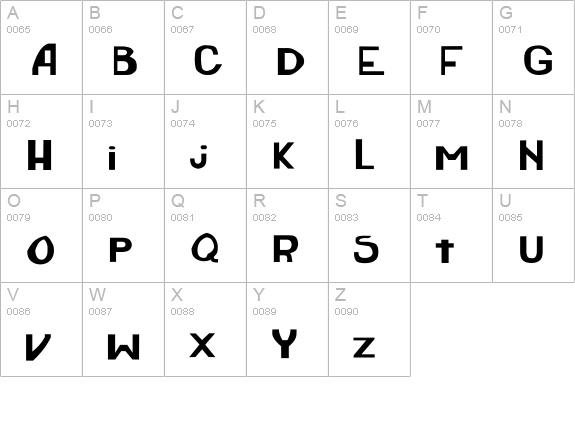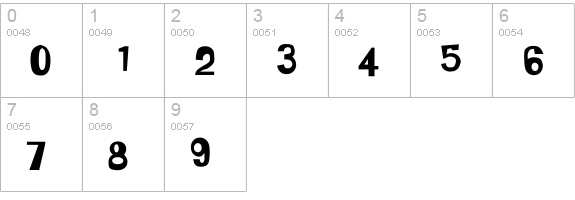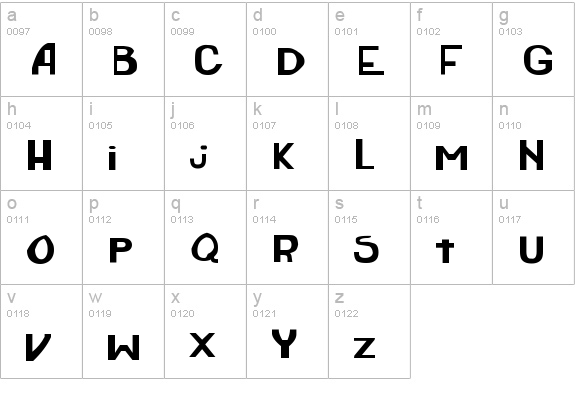
im Font Details
Introducing the exquisite and versatile im font, a true gem for typography enthusiasts. This beautifully crafted font is the perfect blend of elegance and modernity, making it suitable for a wide range of design projects. With its clean lines and balanced proportions, im font effortlessly captures attention and adds a touch of sophistication to any creative endeavor. Whether you're designing a logo, crafting a brand identity, or working on a website, this font will elevate your work to new heights. What sets im font apart is its exceptional versatility. It seamlessly adapts to various design styles, from minimalistic and clean to bold and expressive. This font is a true chameleon, able to effortlessly convey different moods and messages with its wide range of weights and styles. And the best part? im font is available for free! You heard it right, this remarkable font can be freely downloaded at FontsMarket.com, the premier destination for high-quality fonts. Say goodbye to hefty price tags and hello to endless creative possibilities, all at no cost. Whether you're a professional designer or a passionate amateur, im font is a must-have in your typographic arsenal. Its timeless appeal and unrivaled versatility make it a valuable asset for any project. So don't wait any longer, head over to FontsMarket.com and download im font today. Your designs will thank you.